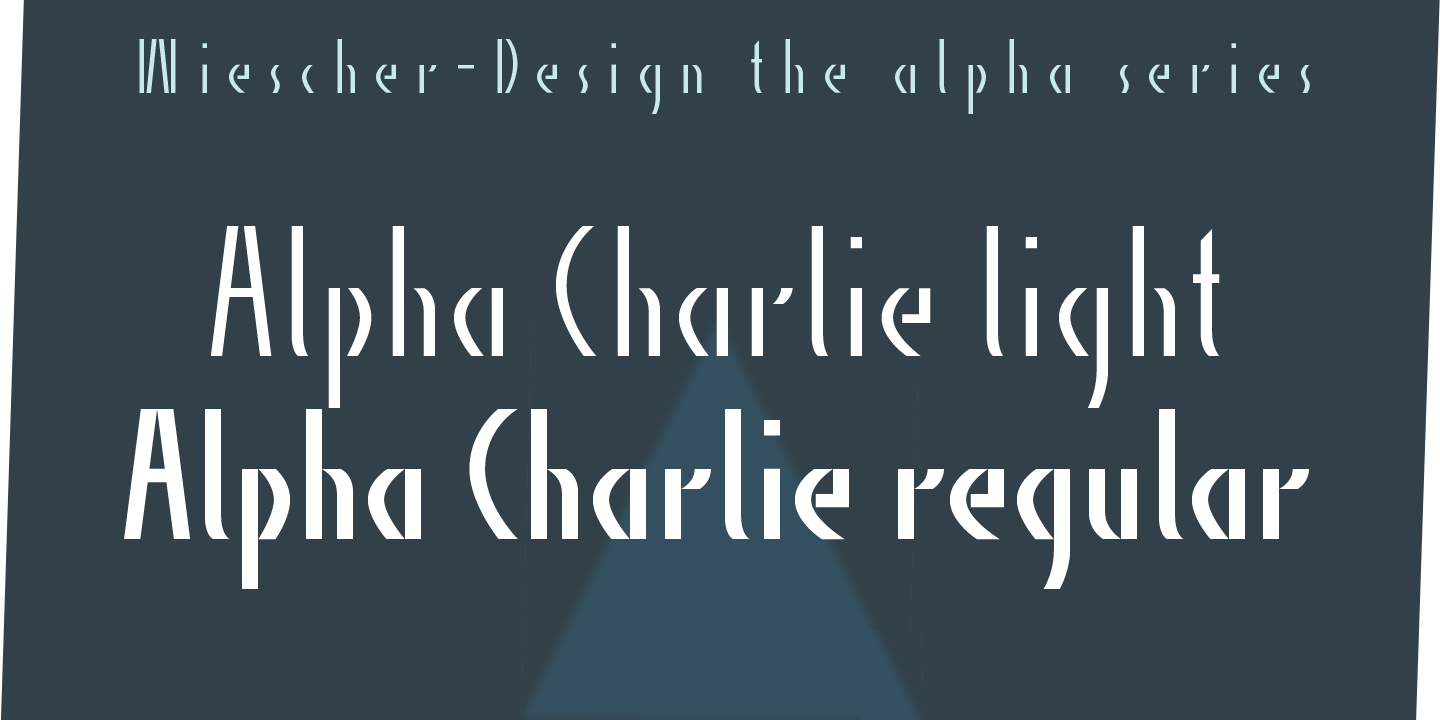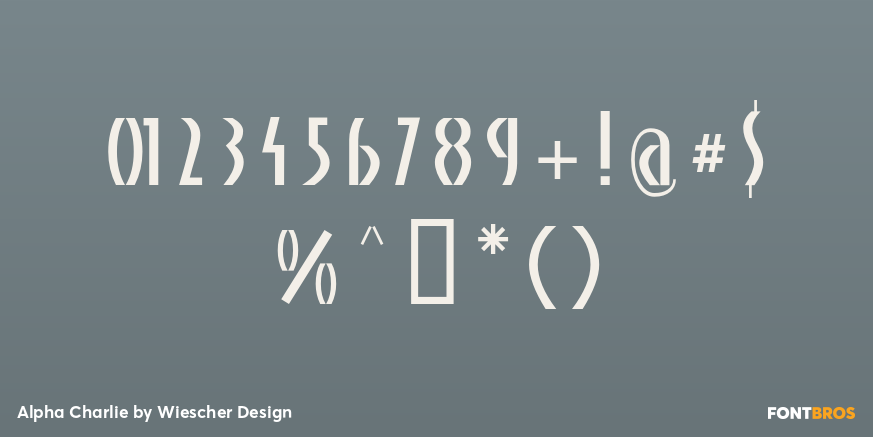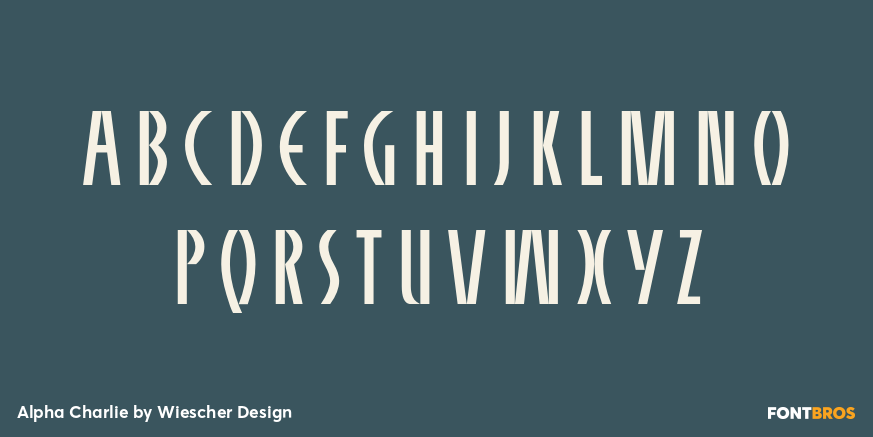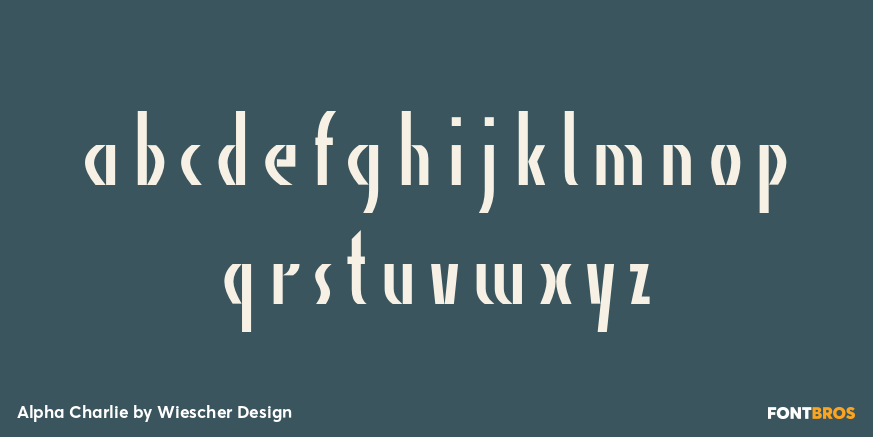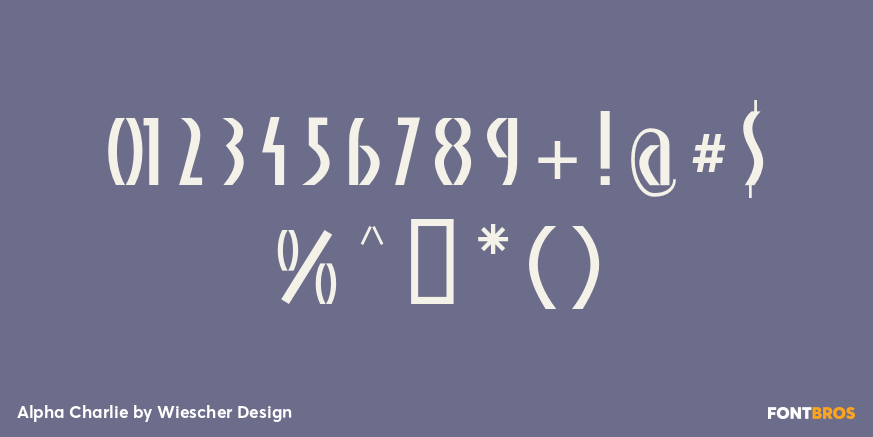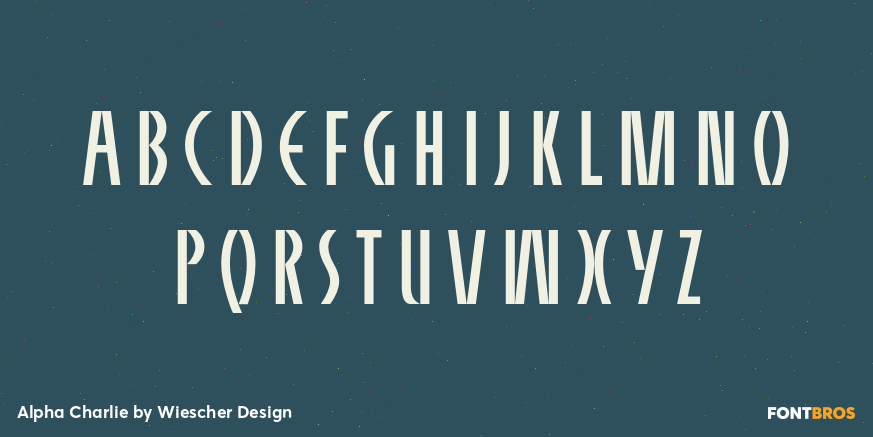
Alpha Charlie
Font Family by Wiescher Design
AlphaCharlie started as an experiment.
But once I had a couple of letters, I thought it looked very interesting. So I just designed the whole set.